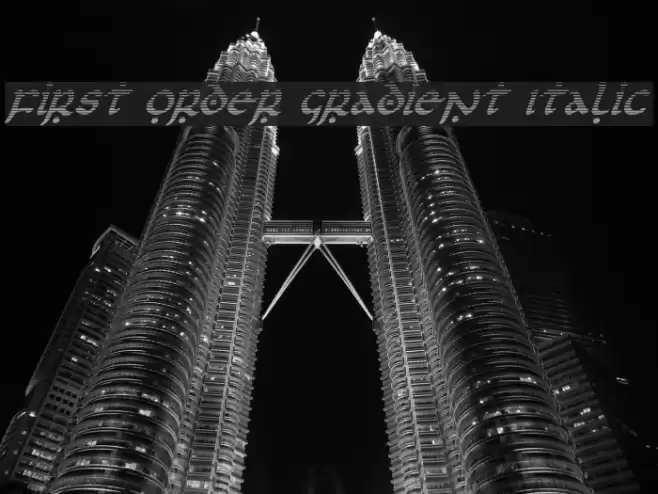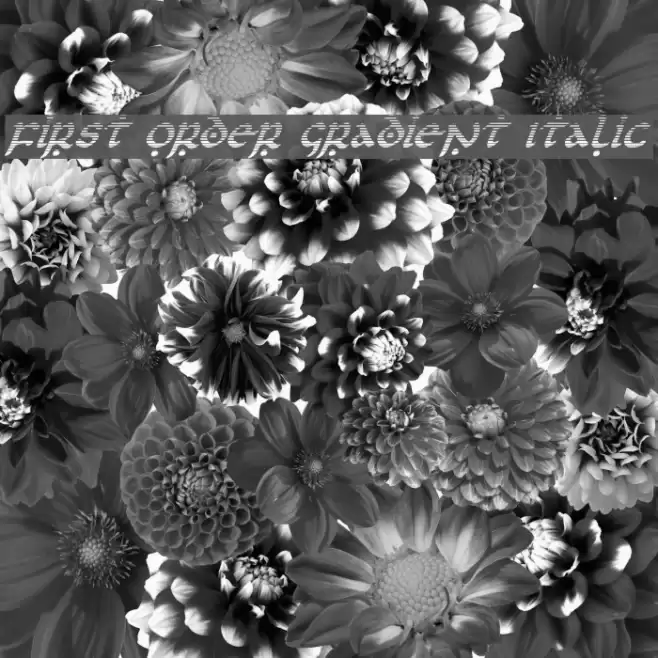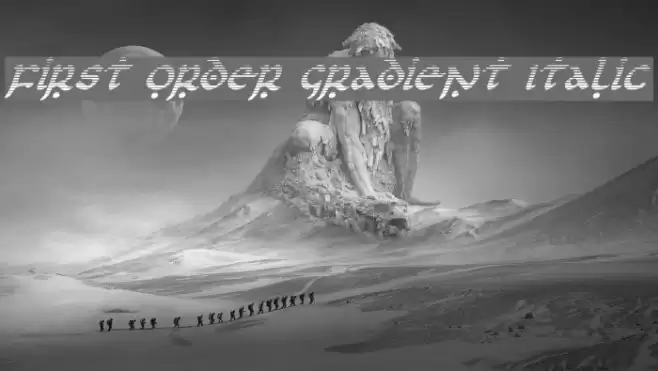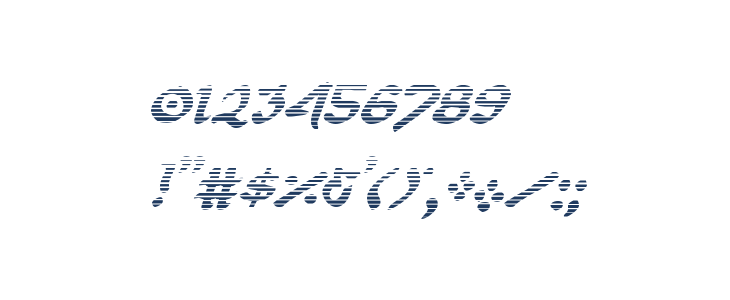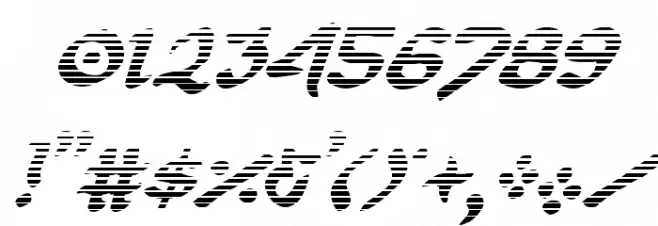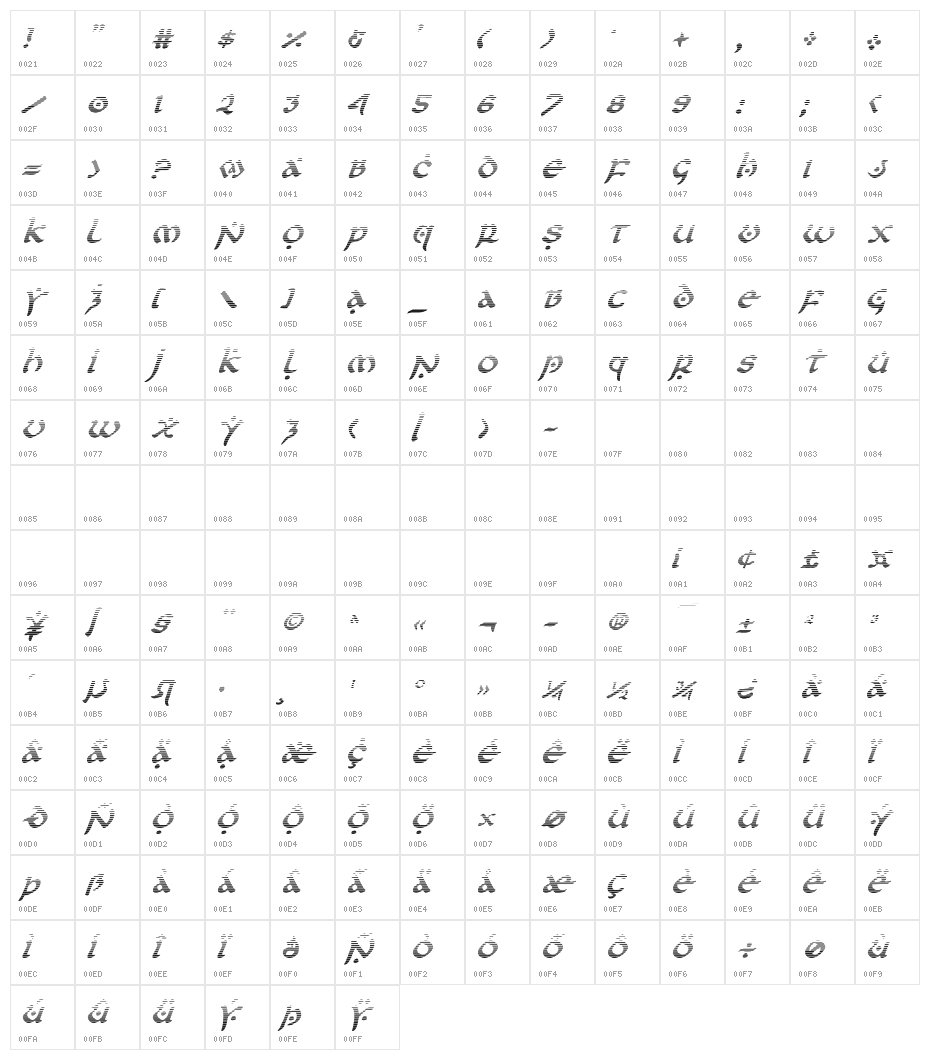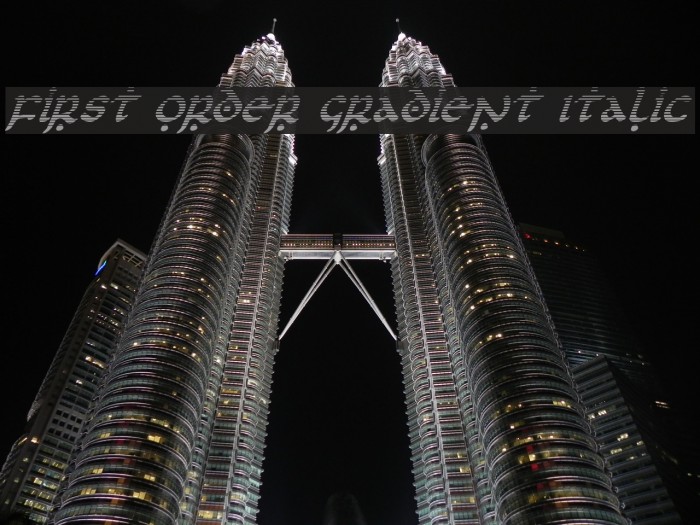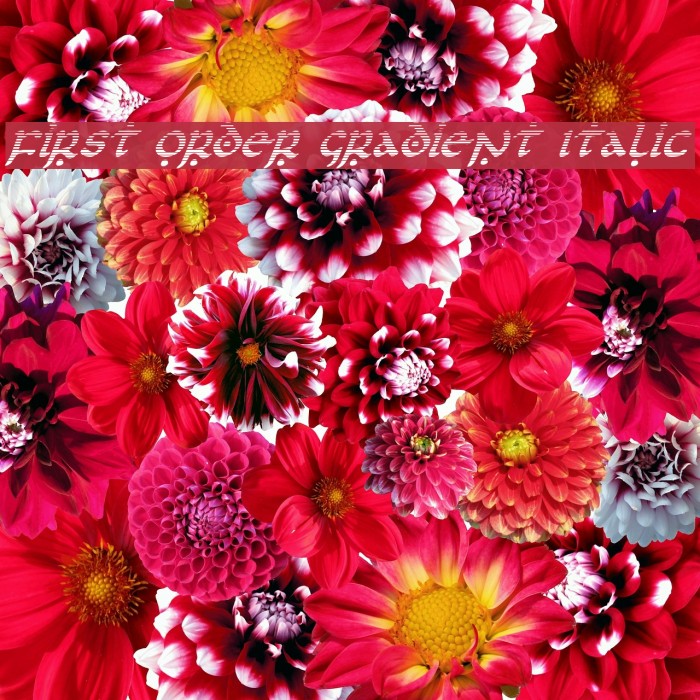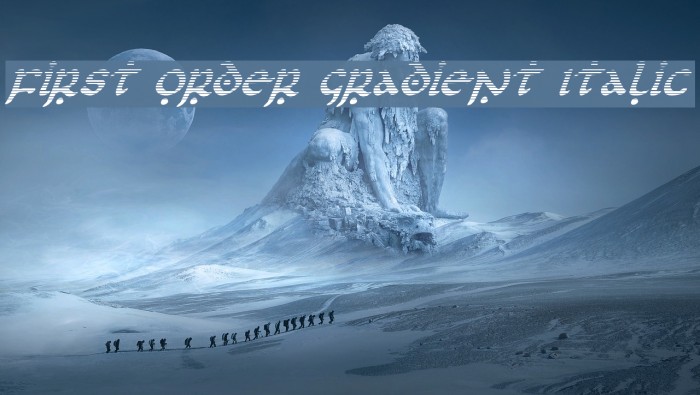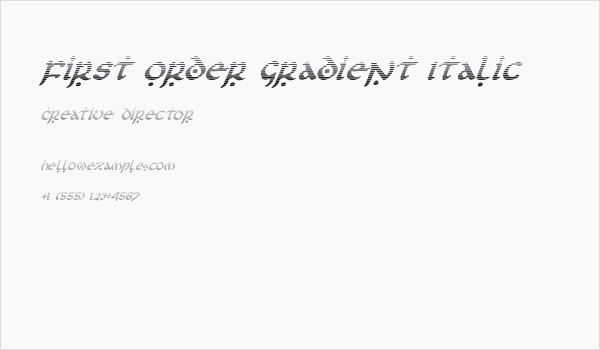
First Order Gradient Italic Font
First Order Gradient Italic Description
This font features a dynamic and modern italic style with a unique gradient effect created by horizontal lines running through each character. The slanted design gives it a sense of motion and energy, making it stand out in any context. The characters are bold and have a distinct presence, with a moderate spacing that ensures readability while maintaining a compact appearance. The gradient effect adds a layer of depth and texture, making it suitable for eye-catching designs. The font includes a full set of uppercase and lowercase letters, numbers, and a variety of special characters, offering versatility for different design needs.
A modern italic font with a unique gradient effect and bold, dynamic style from Uncategorized fonts.
- Proposed Projects: Ideal for branding, advertising, posters, and digital media where a striking and modern look is desired.